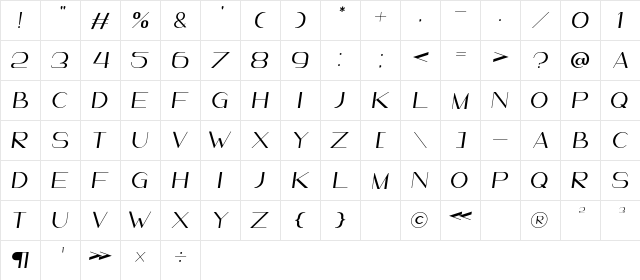
LeanderDemo Italic
| Designer | Candi Erwanto |
Design Context for LeanderDemo Typeface
LeanderDemo offers clean, dependable letterforms without strong stylistic allegiance, making it a practical choice for designers who need flexibility. The slanted form adds forward momentum and visual energy.